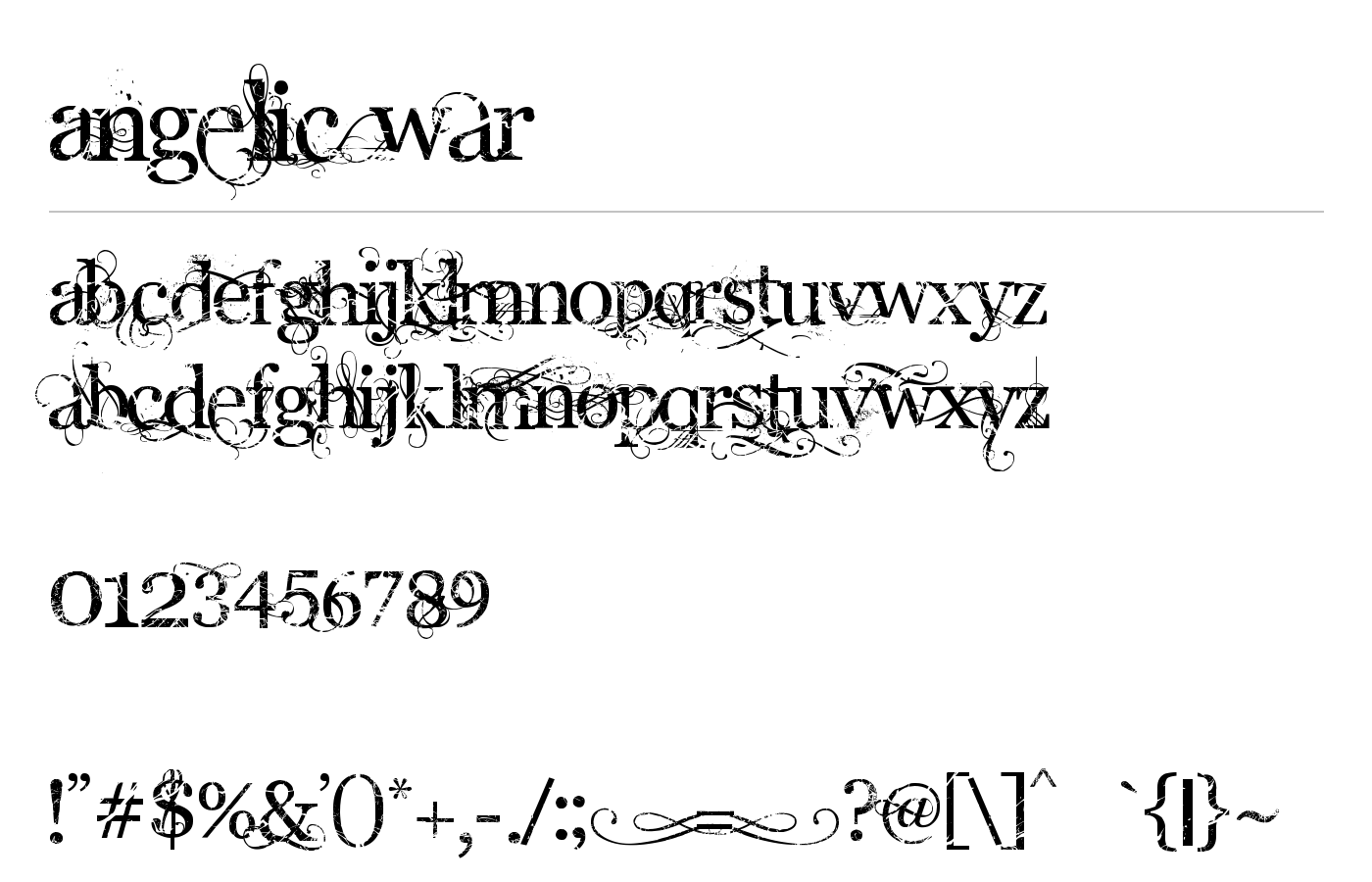
Angelic War is a decorative serif font with a distressed, ornamental style that combines classic serif letterforms with intricate flourishes and grunge textures. It has a medium weight and normal width, featuring high contrast strokes with elegant, swirling embellishments that give it a vintage, mysterious feel, ideal for creative and dramatic design projects. This font works best in logos, posters, and packaging where a bold, artistic statement is needed rather than in body text due to its complex details.
Angelic War Font
About Angelic War Font